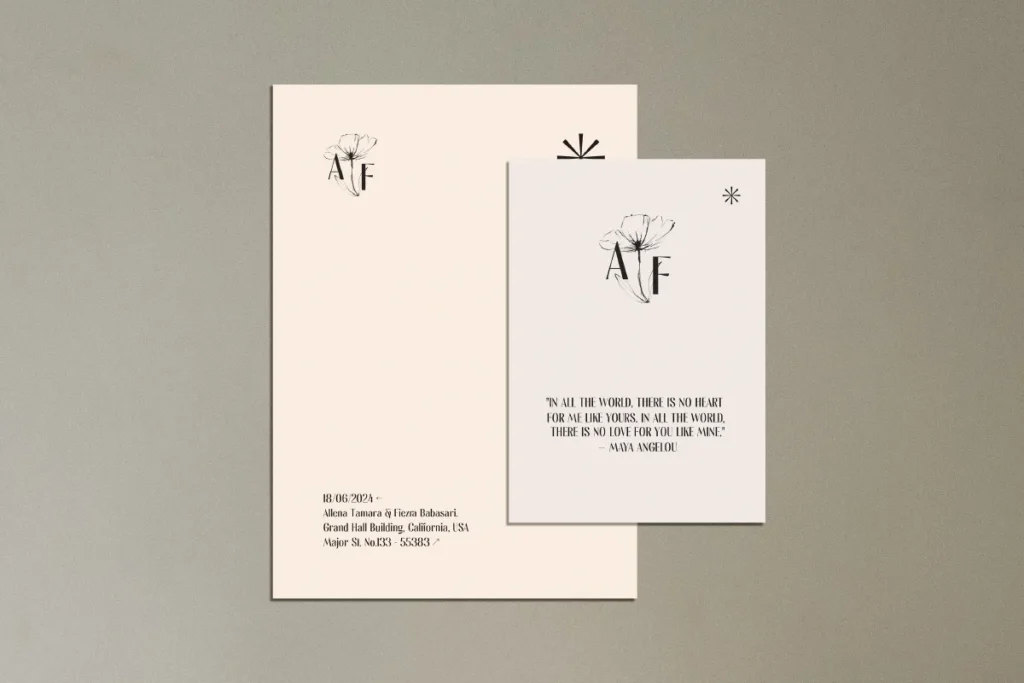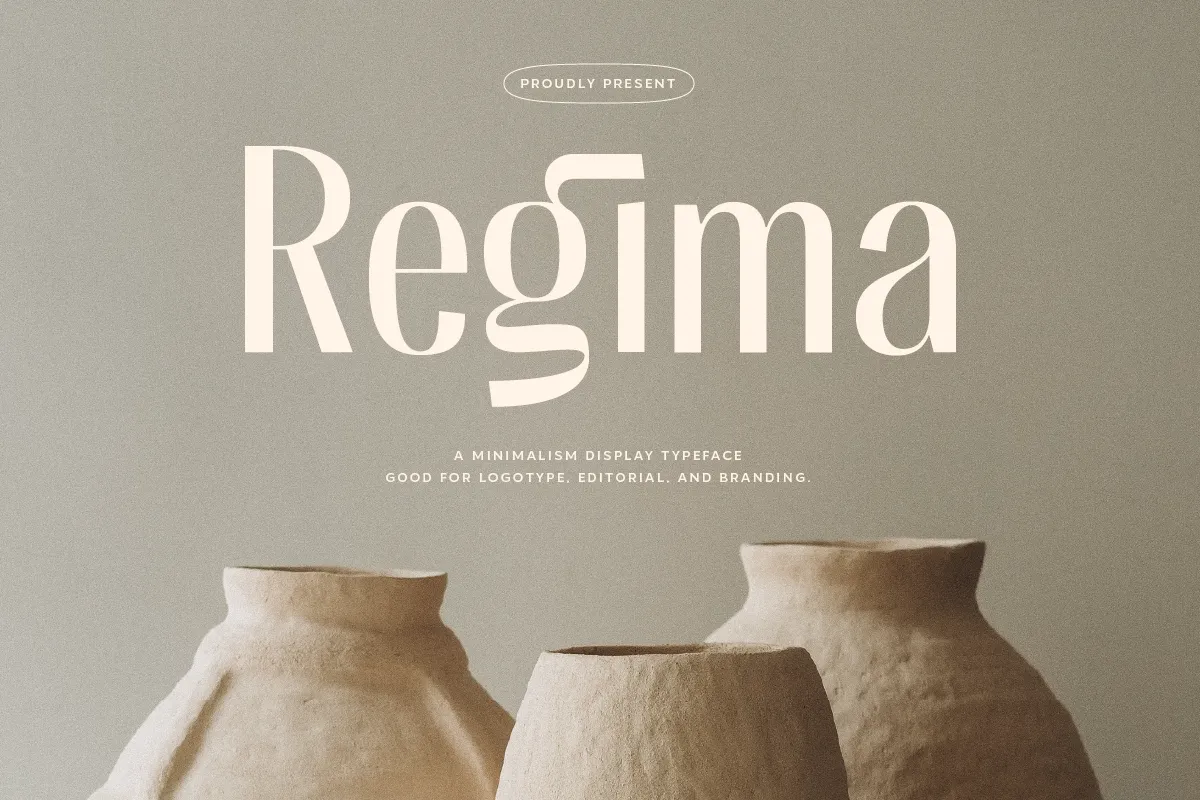
Free Regima Minmialist Font
Regima Minmialist Font, a moderate presentation text style, ideal for logotype, marking, publication and so on. Regima Minmialist Font is a smooth and present day moderate showcase textual style that is tailor-made for logotypes, marking, publication plans, and the sky is the limit from there. With its spotless lines and basic yet modern plan, Regima oozes a quality of style and amazing skill.